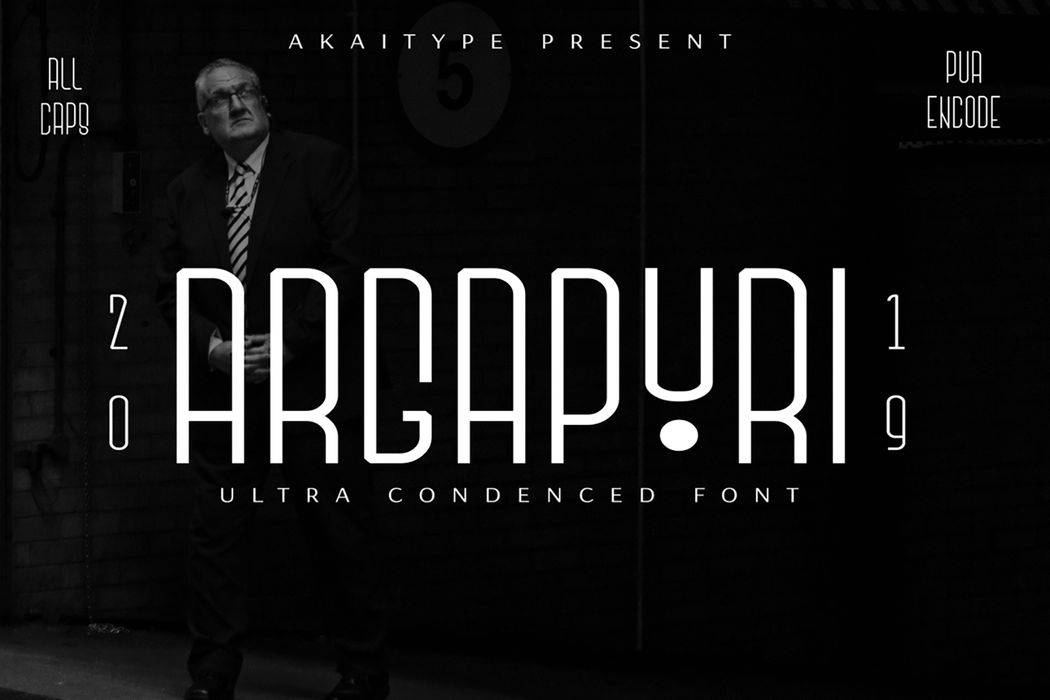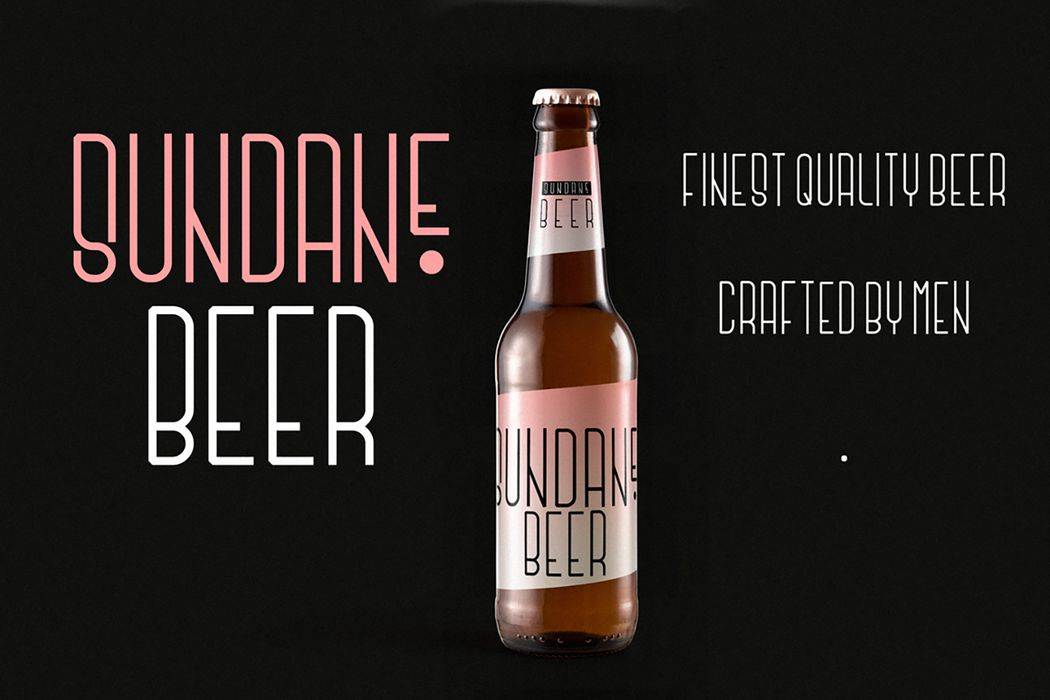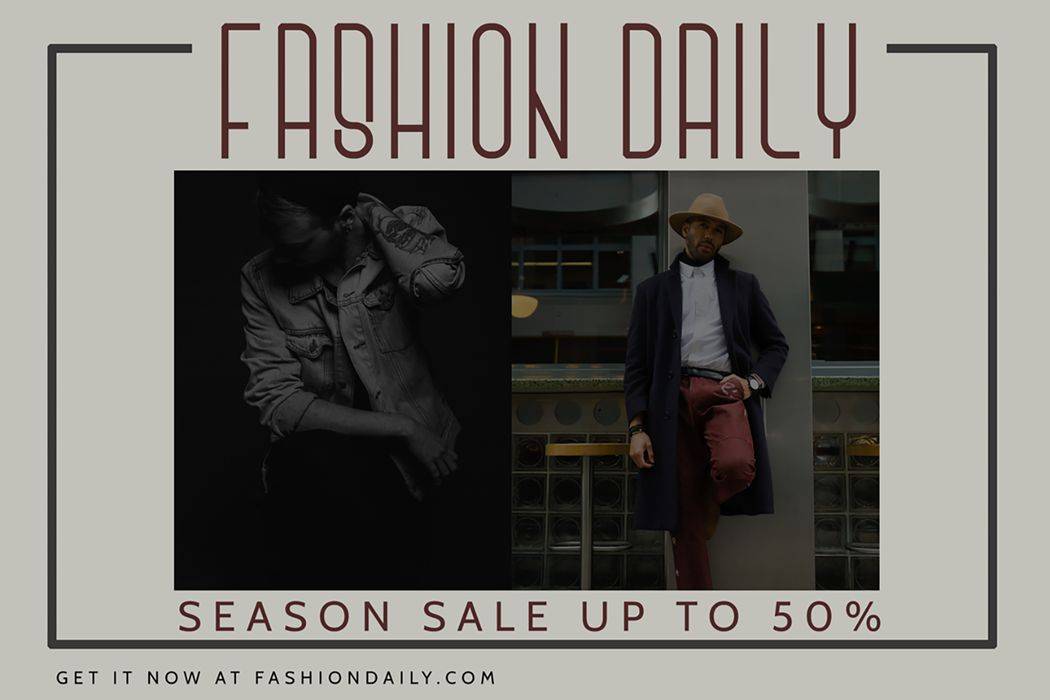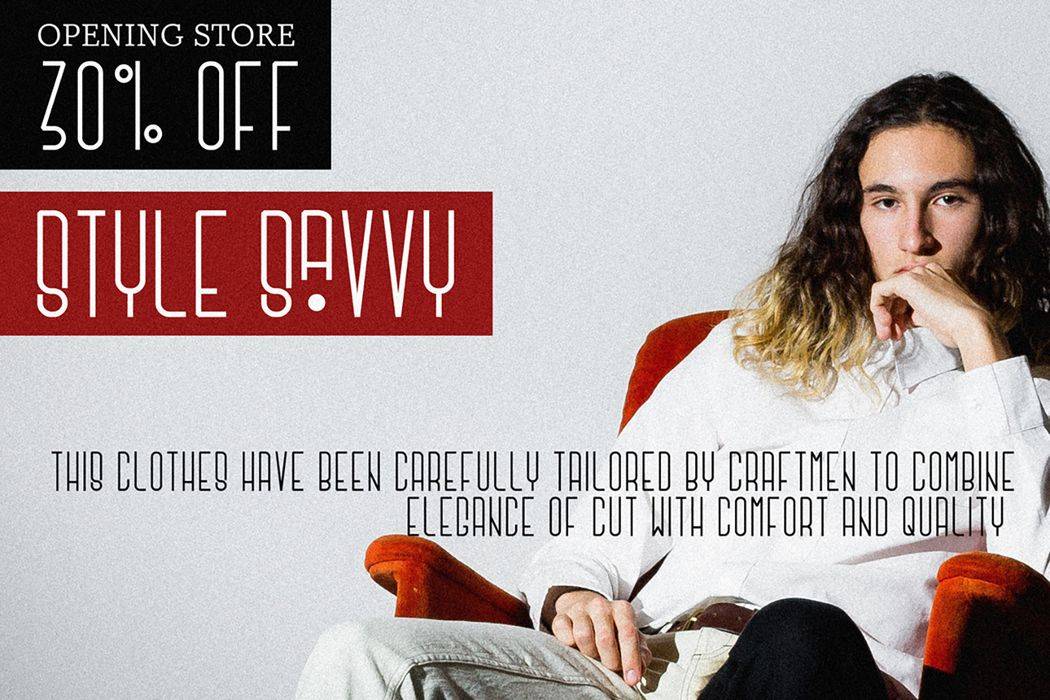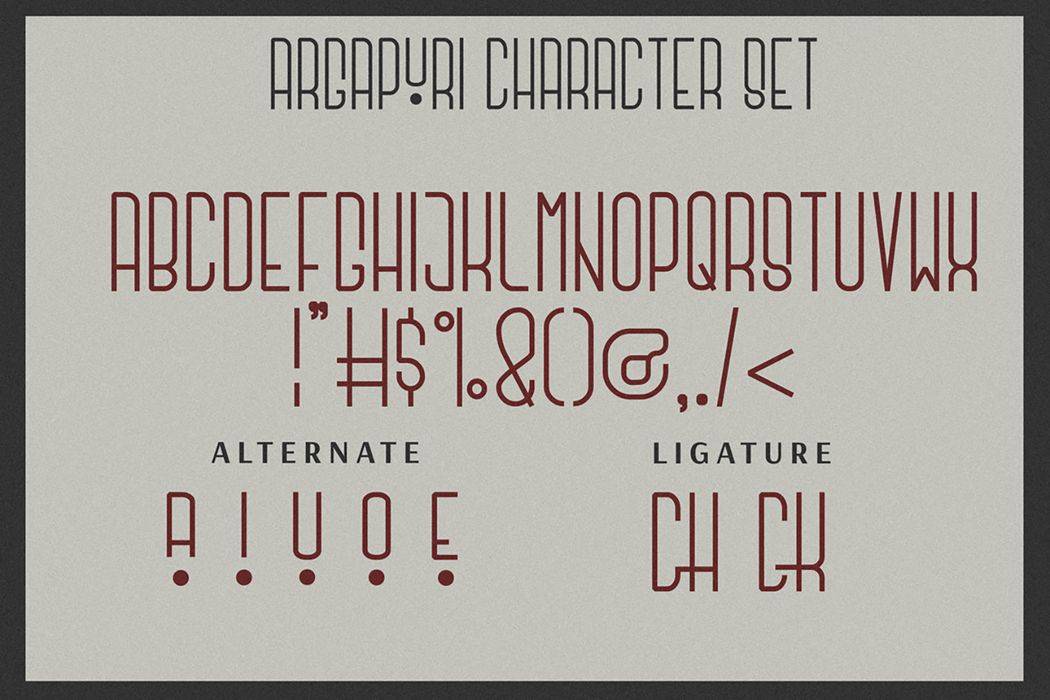
Argapuri is a tall, narrow sans serif font characterized by its ultra-condensed letterforms and clean, geometric lines. Its thin weight and high x-height give it a modern, minimalist feel, ideal for sleek headlines or contemporary design projects seeking a stylish and refined look. This font works well in editorial layouts, branding, and fashion-related uses where a strong, elegant presence is desired without overwhelming the design.
| Font family | Argapuri Font |
| Release date | 2019-05-02 |
| Designer | Akaitype Studio |